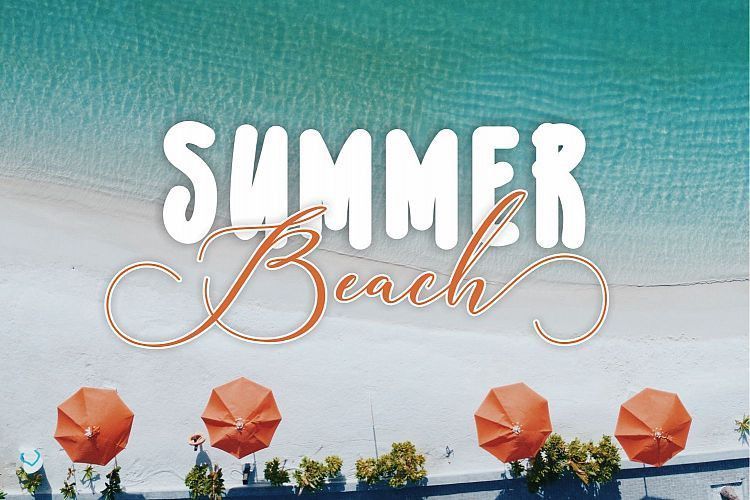
Strong Farmhouse Font
Strong Farmhouse Font is mostly favorable for its work in circuits. This also known for its text generation function and it is present inside Microsoft Word.
Style of Strong Farmhouse Font Free